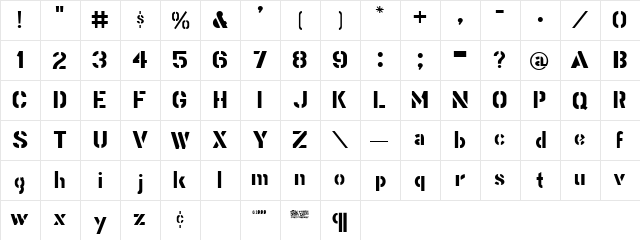
Stencil Gothic BE Regular
Design Context for Stencil Gothic BE Typeface
Stencil Gothic BE borrows the utilitarian aesthetic of stencil lettering, with its characteristic cutaways and no-frills construction lending an industrial edge.
A strong choice for packaging that needs edge, warehouse aesthetics, and rough-and-ready visual identities.
Pro Tip: Use Stencil Gothic BE at large sizes on packaging, posters, or apparel where the stencil cutaways read clearly. Avoid small sizes where those gaps become visual noise.